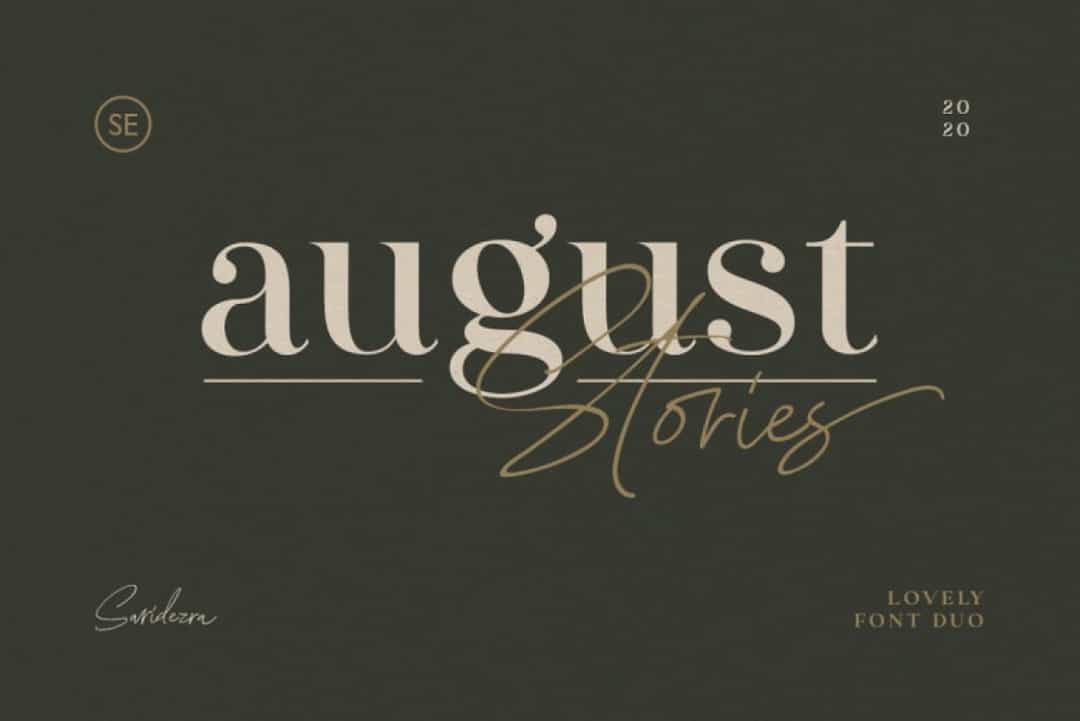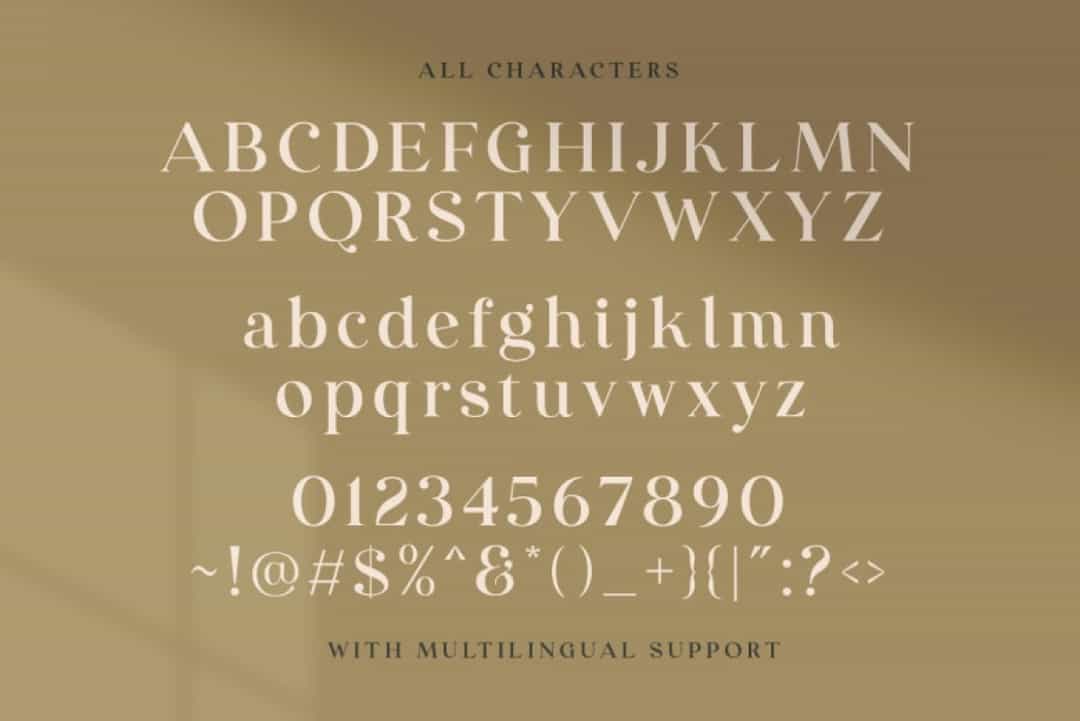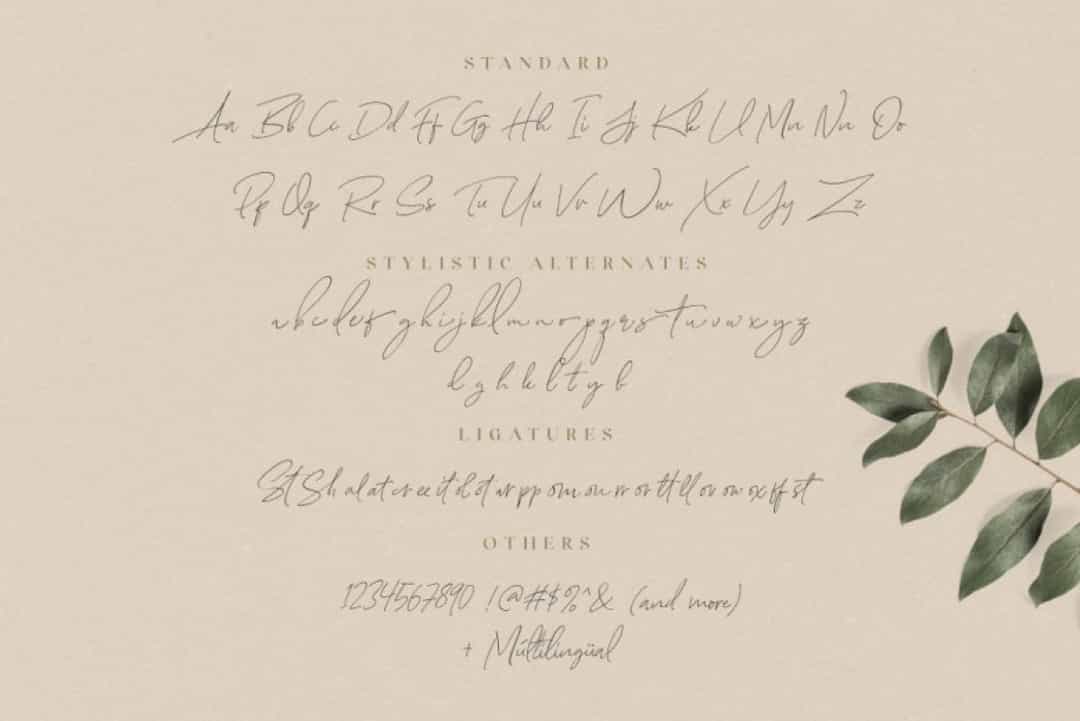
August Stories Font Duo is a stylish blend of serifs and signature script fonts, providing two elegant fonts to use together: elegant serif and signature script font. Multilingual support, symbol support and numbers support are included as well as numerous ligatures; finally it has been PUA encoded.